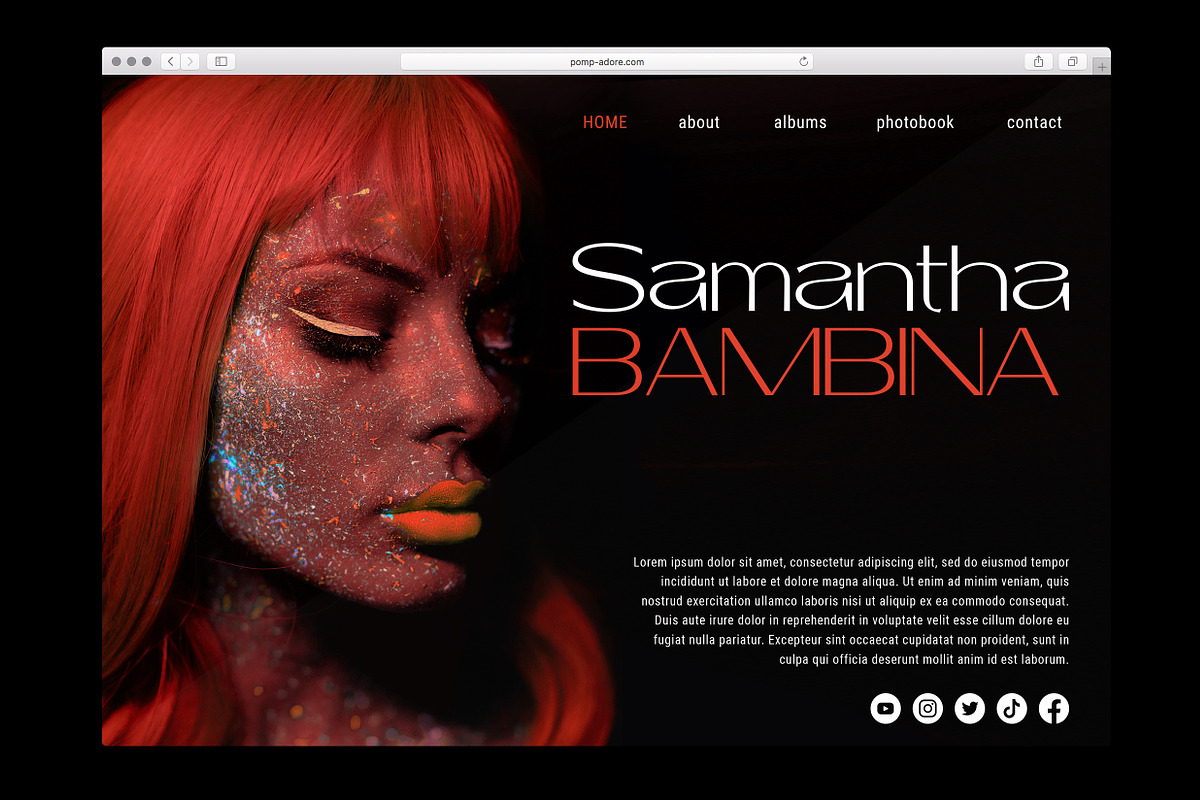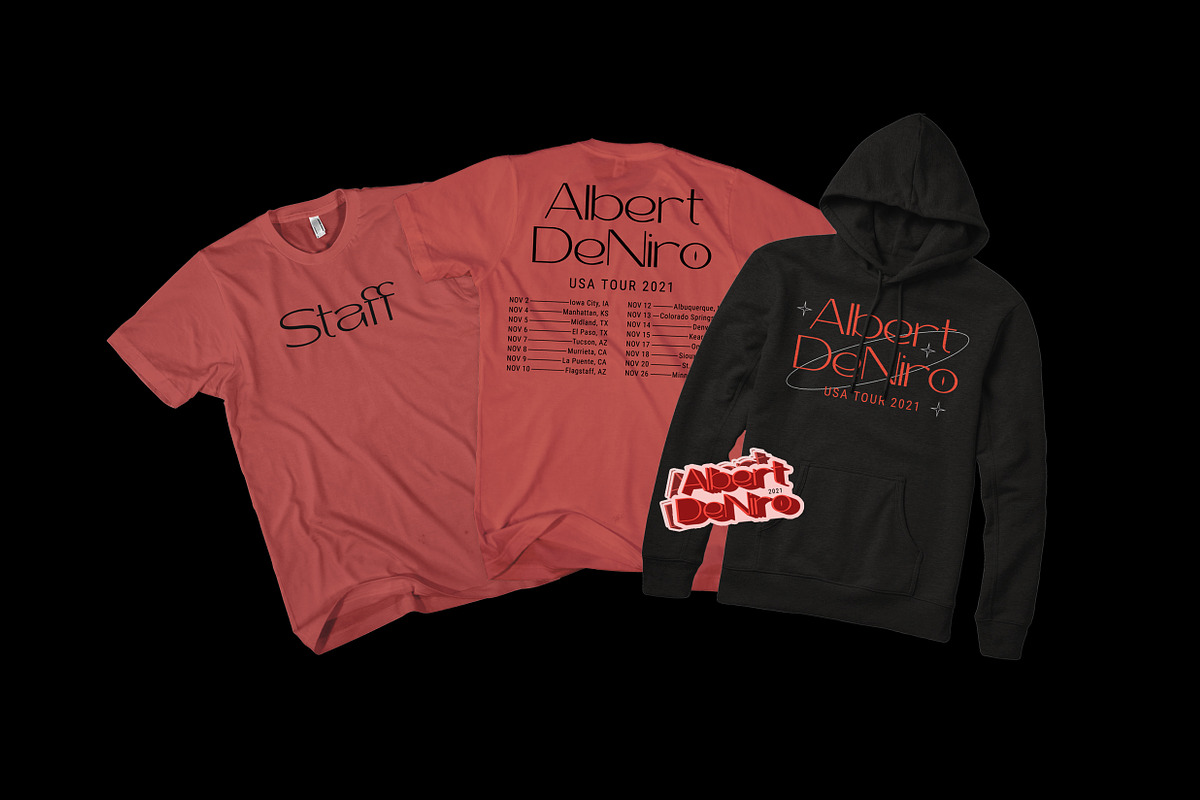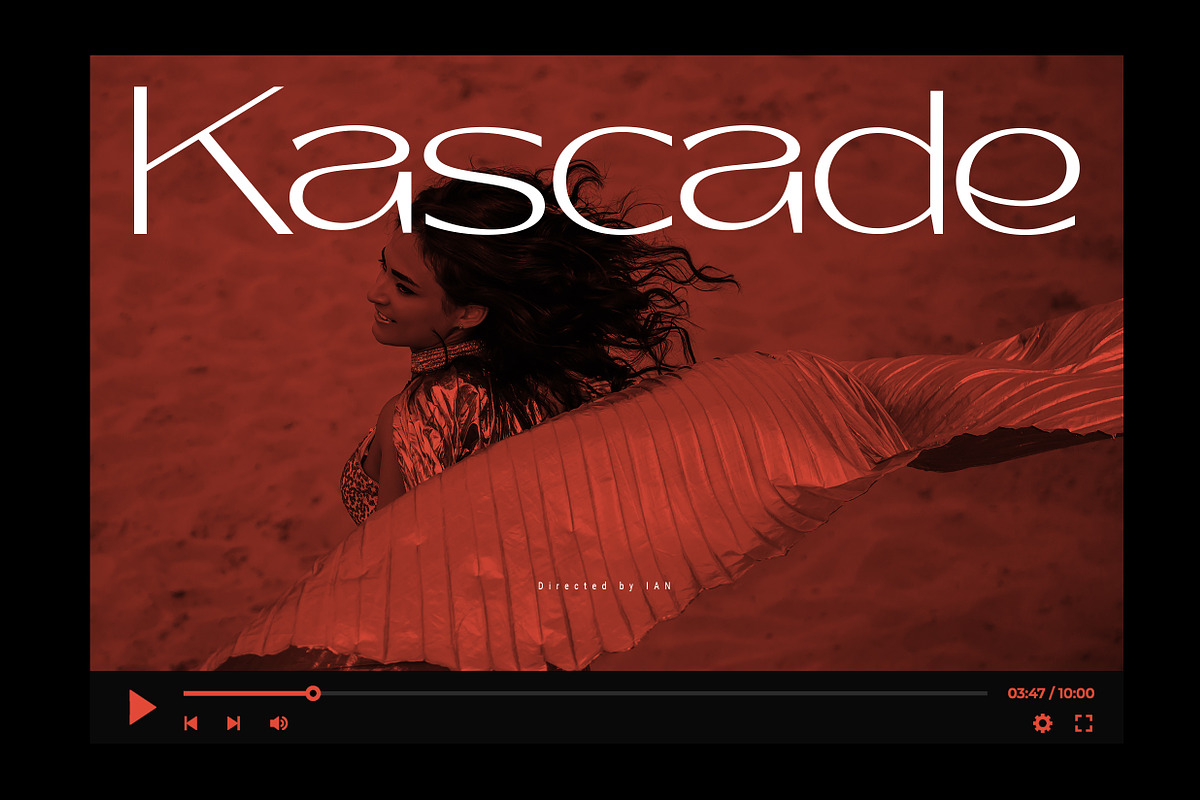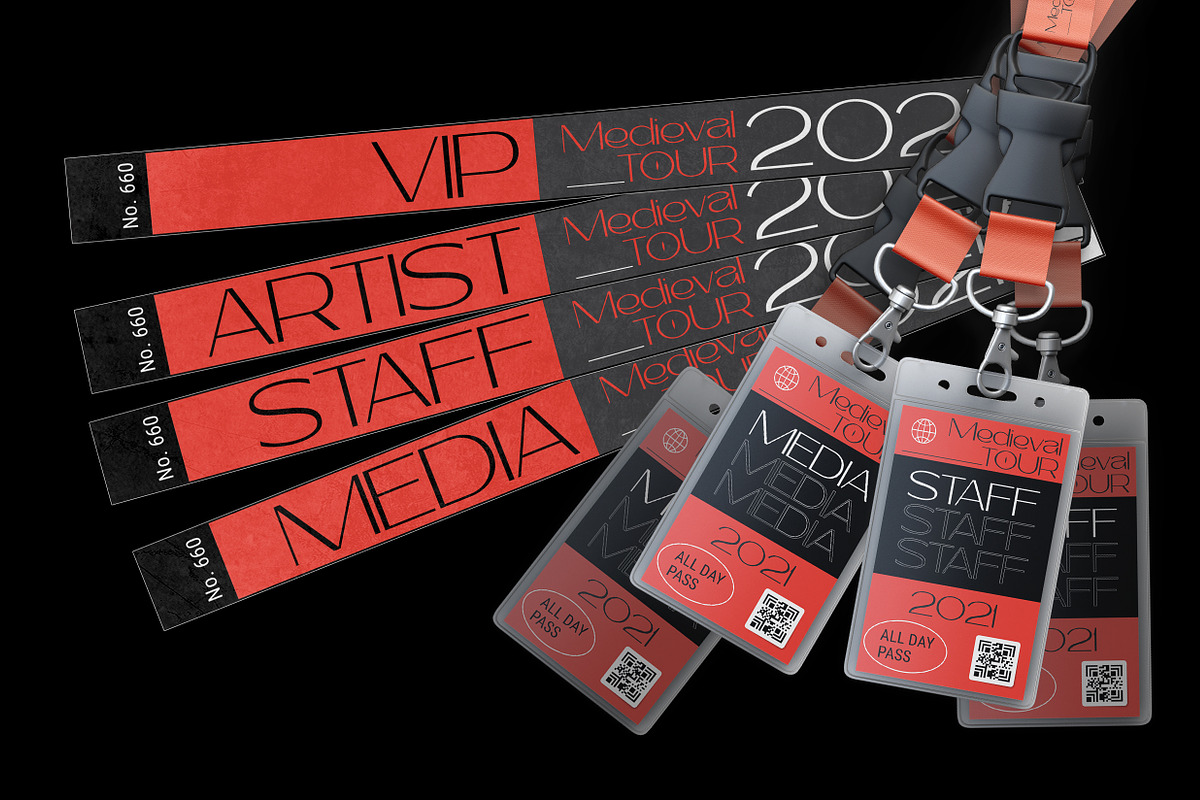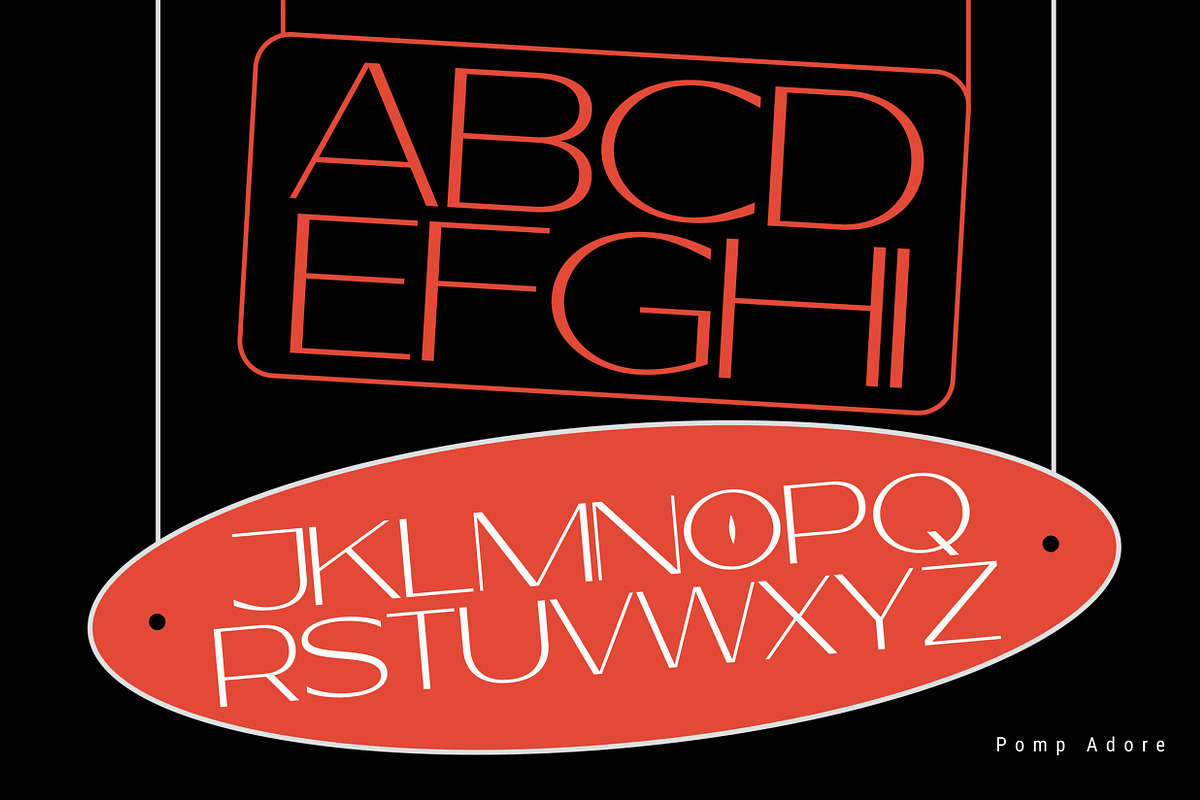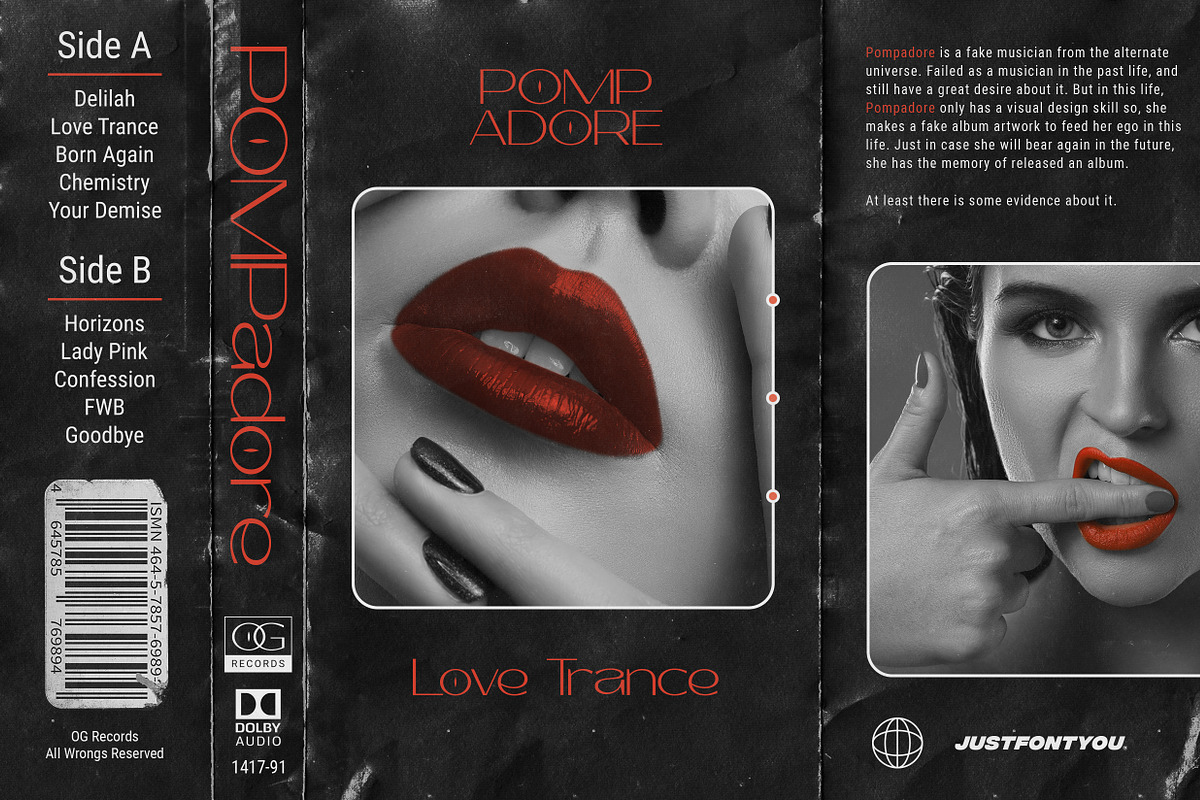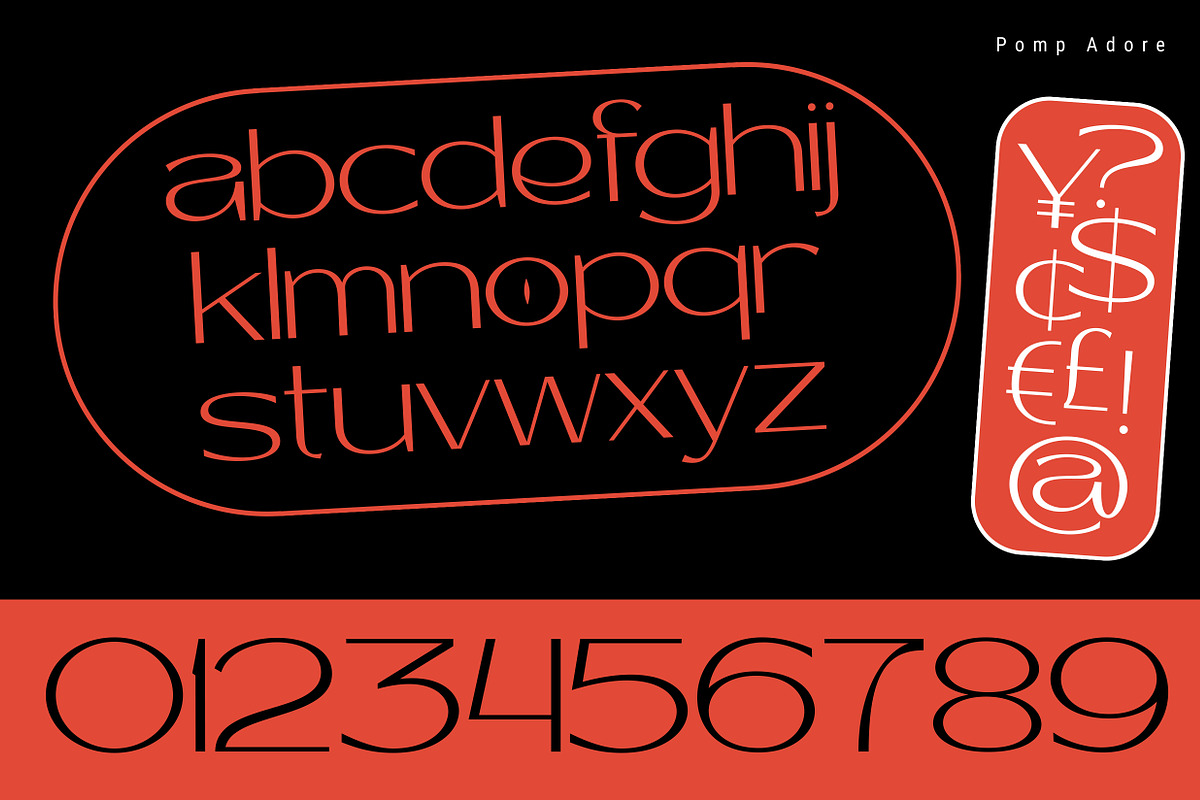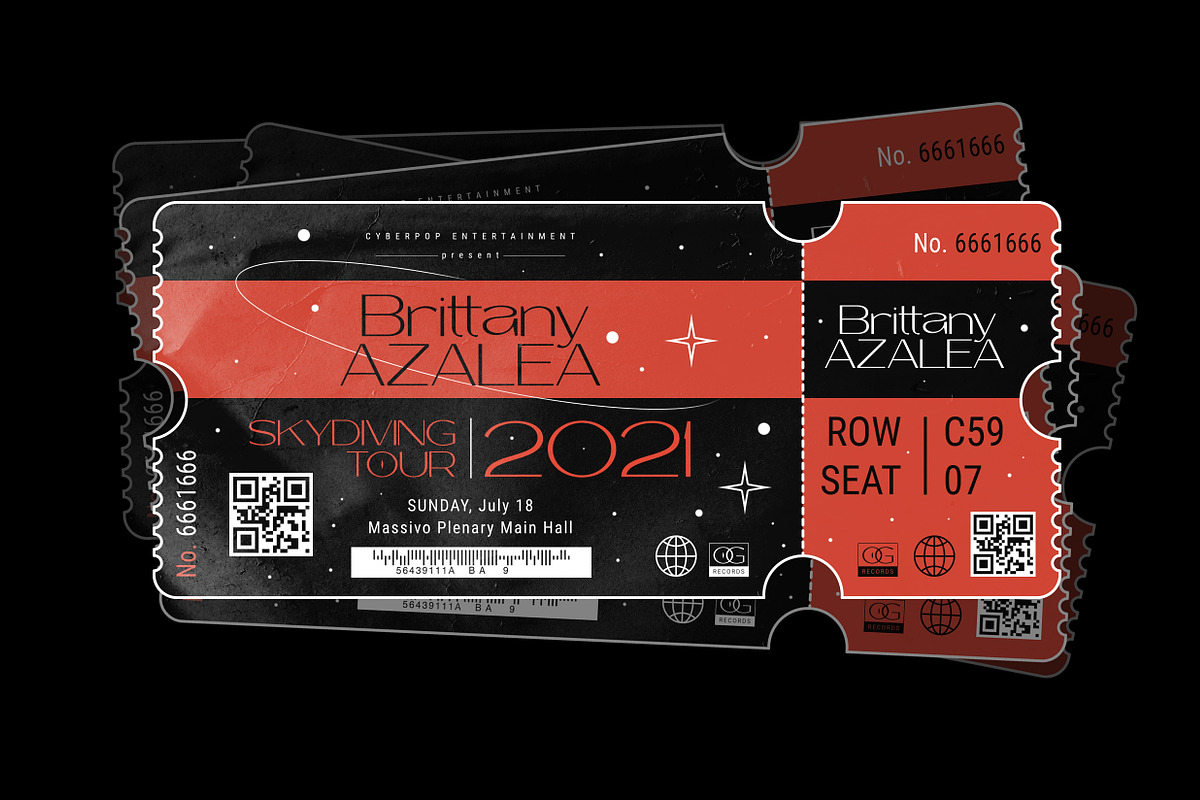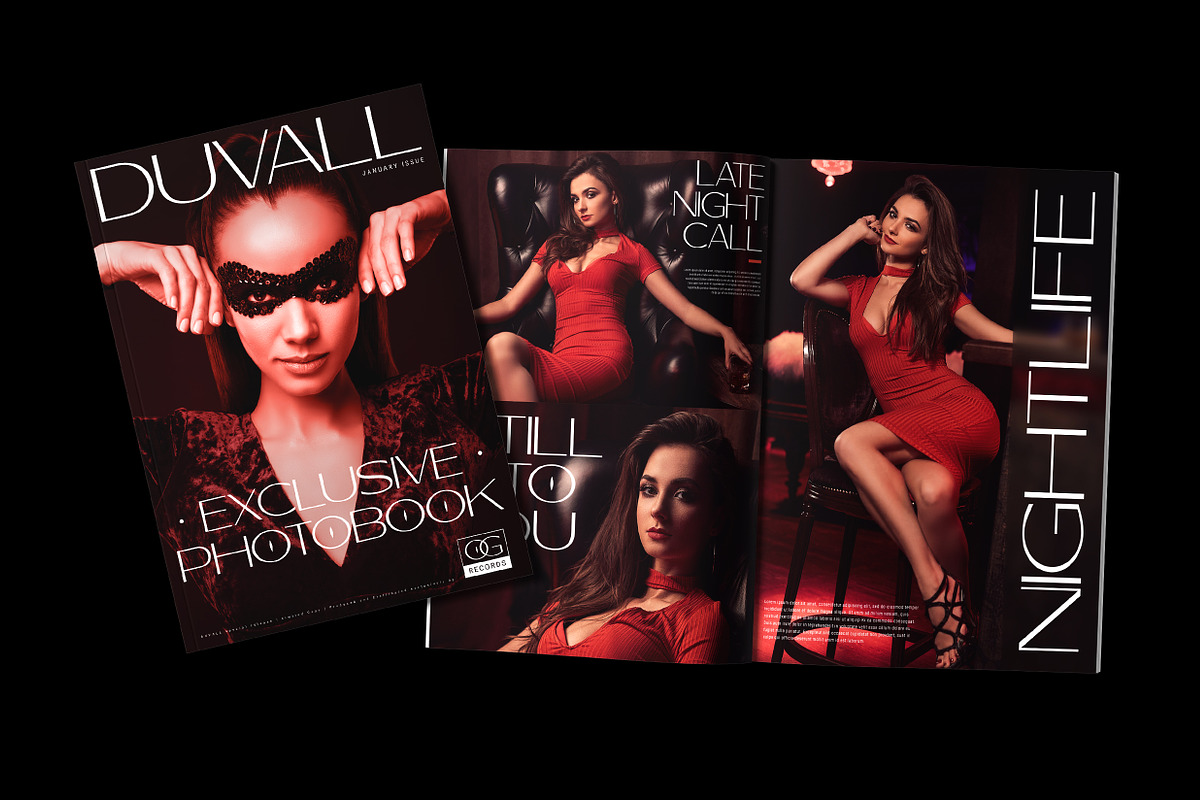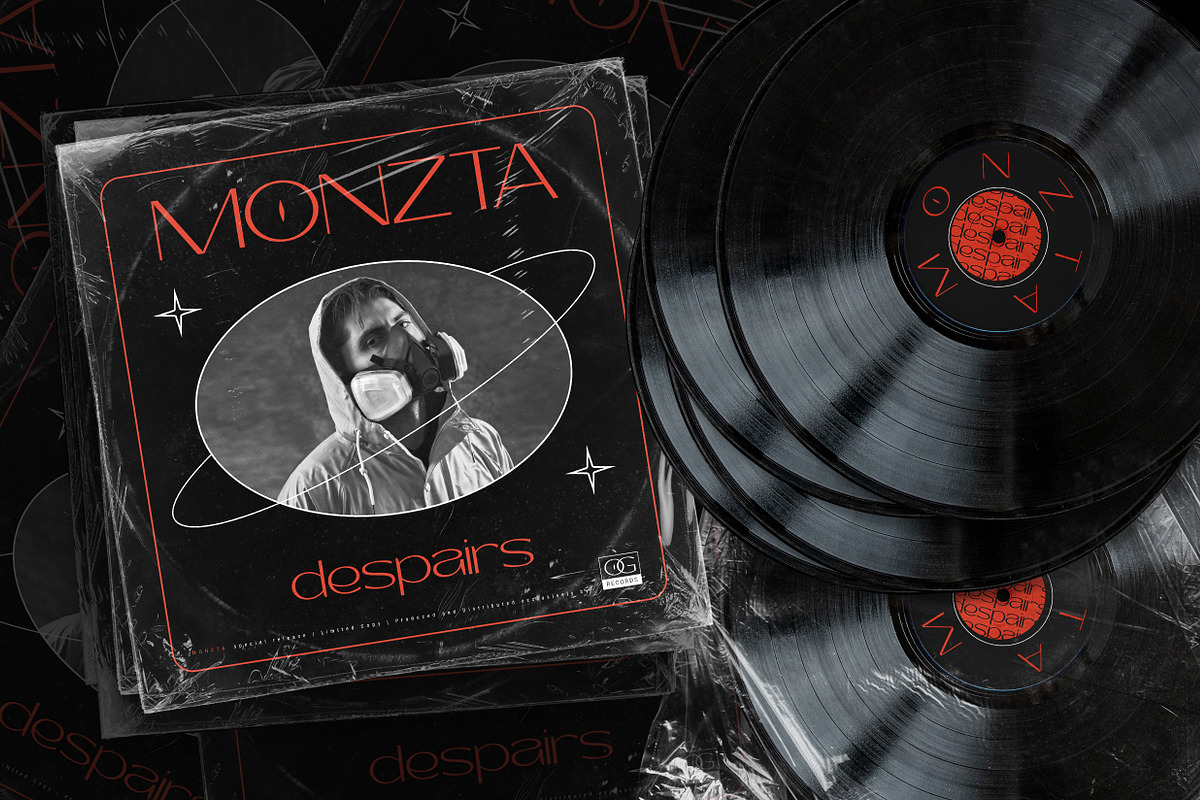
Pomp Adore - Contemporary Sans Serif
My name is Pomp Adore. I'm a fake musician from the alternate universe. I failed as a musician in my past life, but the soul itself is still there.
Somehow, in the present life, I was born into a Contemporary Sans-Serif font. Ian raises me from the dead and makes my dream come true.
He makes me an album artwork cover, website, attend me into musical events, music video, clothing and merchandise, magazine, photobook, as long as I can show my musical side of it.